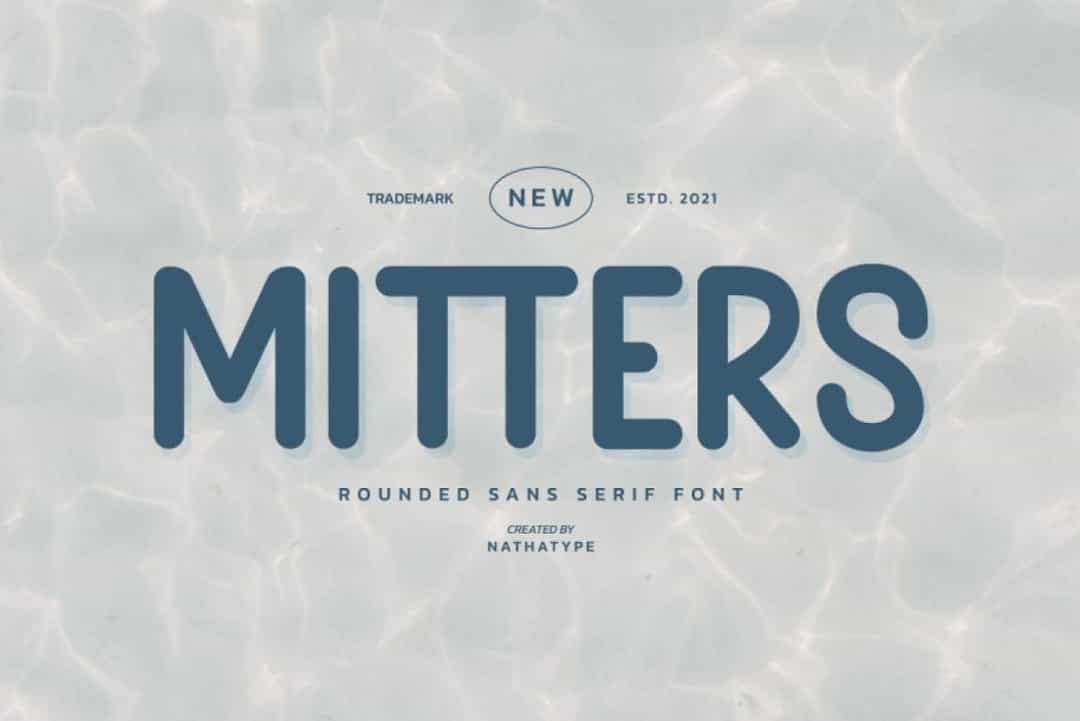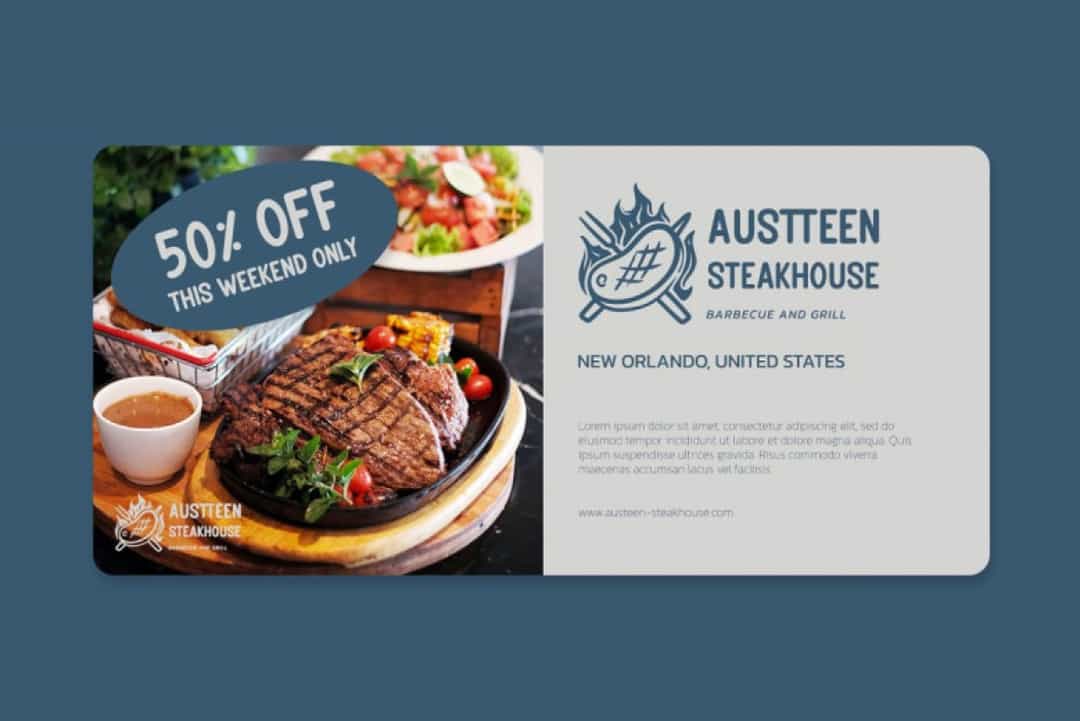
Mitters is a captivating sans serif font with round edges and thick strokes designed to make your brand more memorable with vintage flair. Featuring large letters that look pleasing on the eye as well as being easy to read.